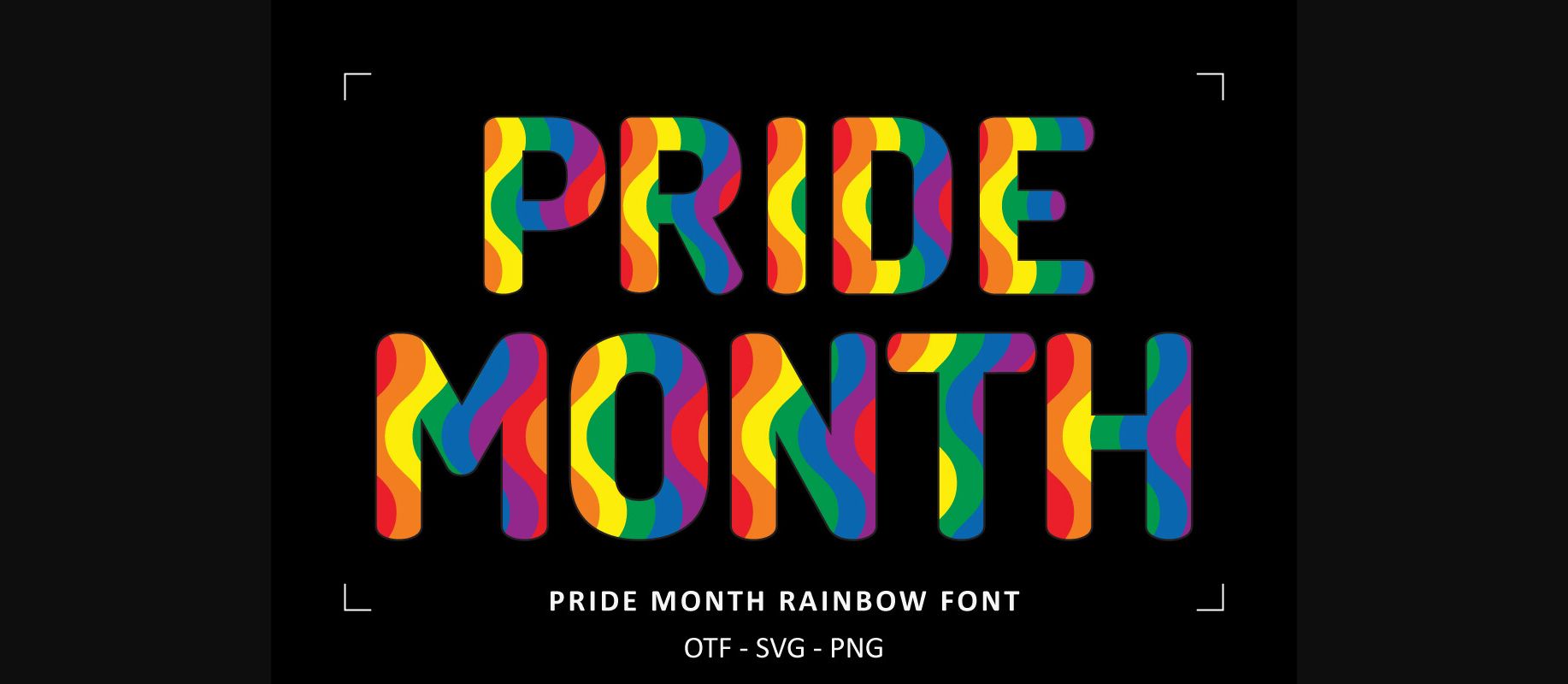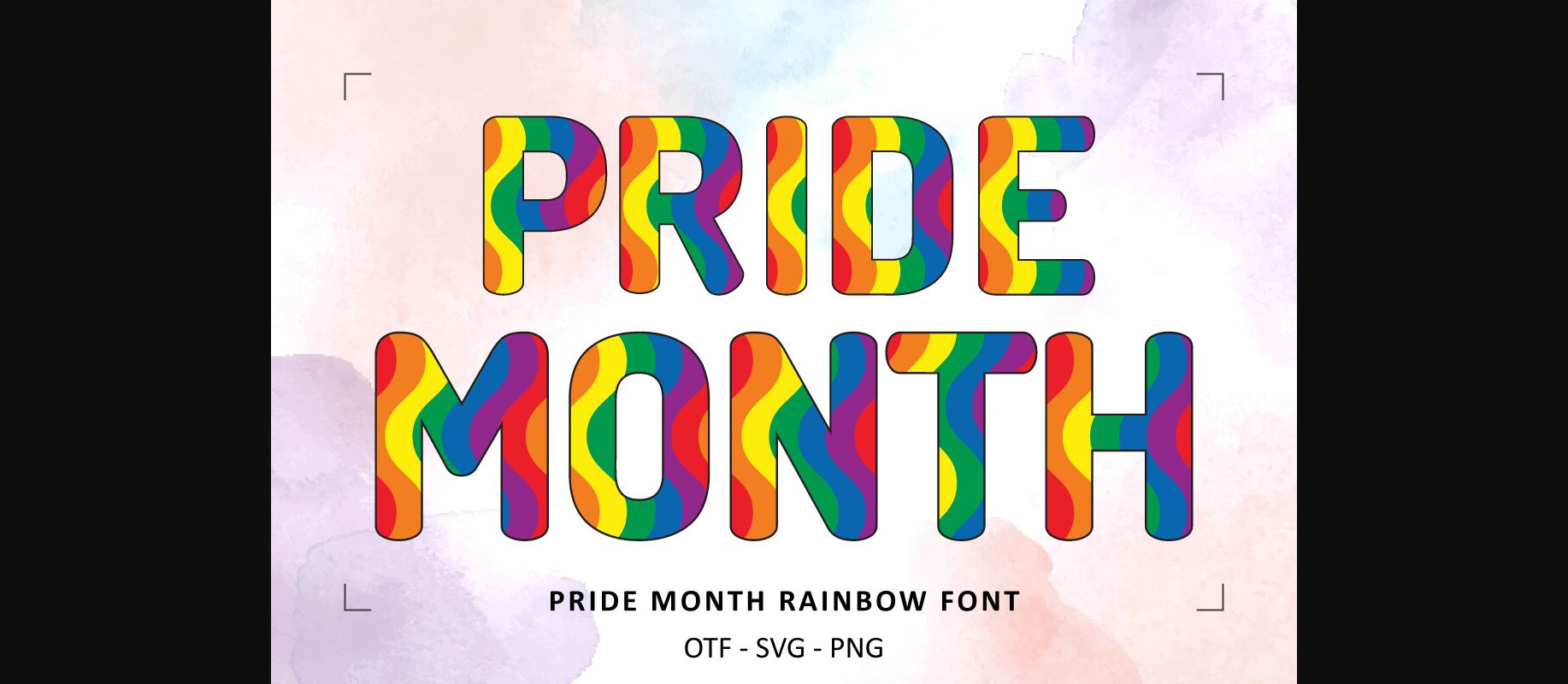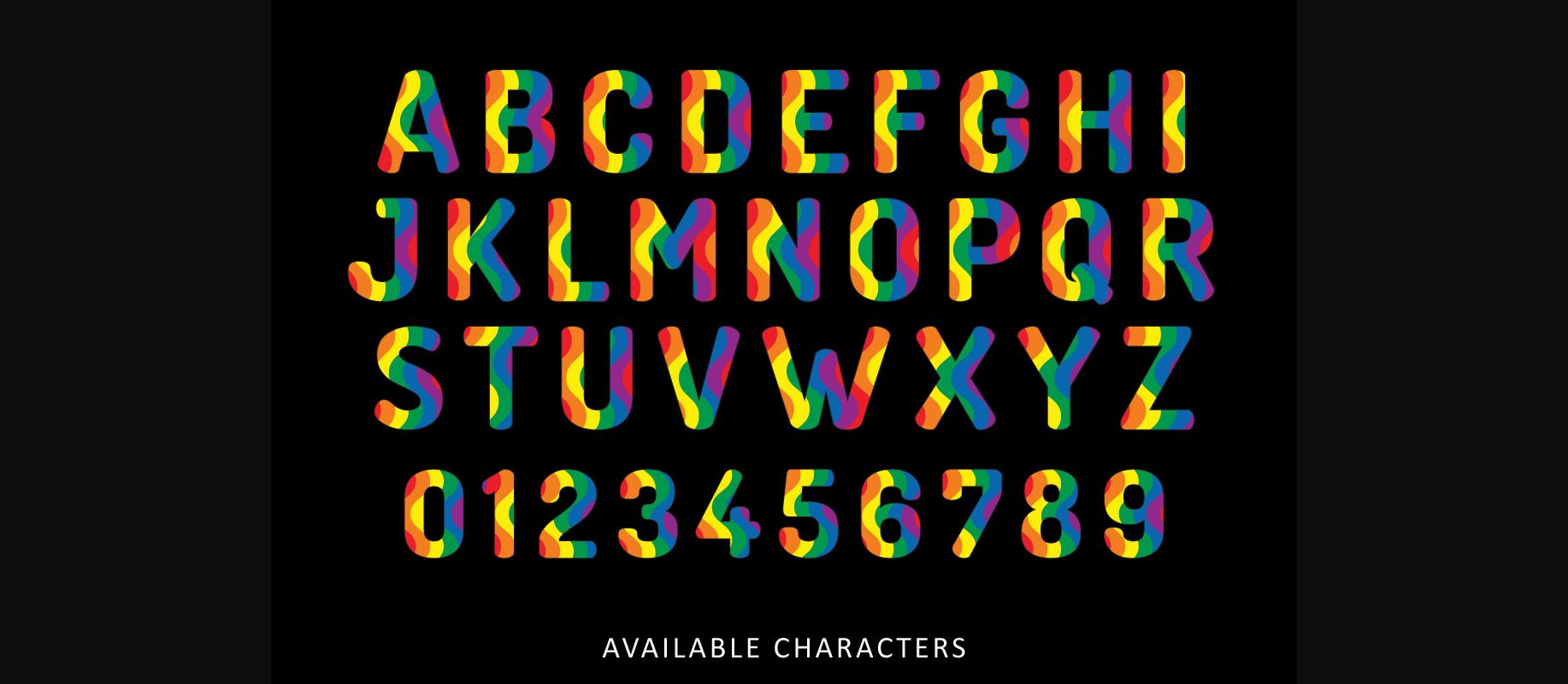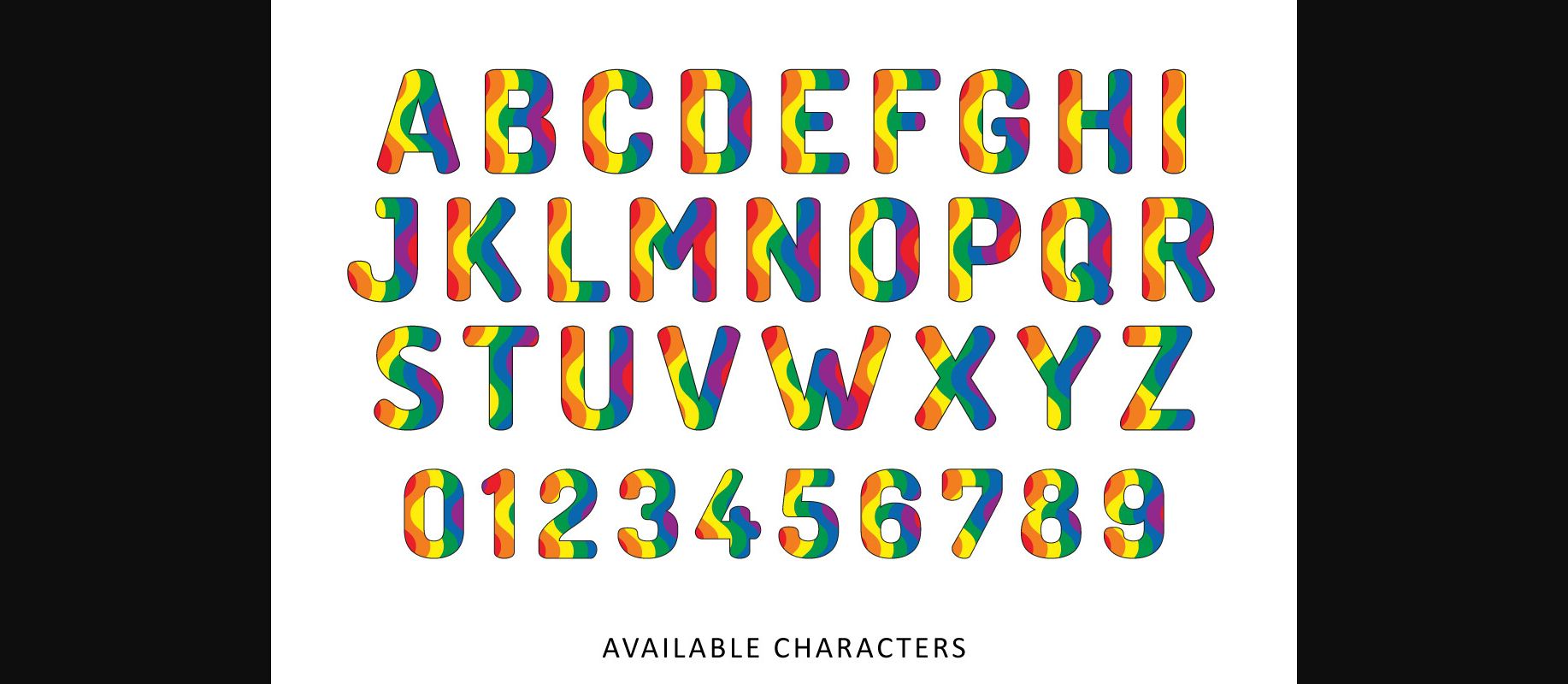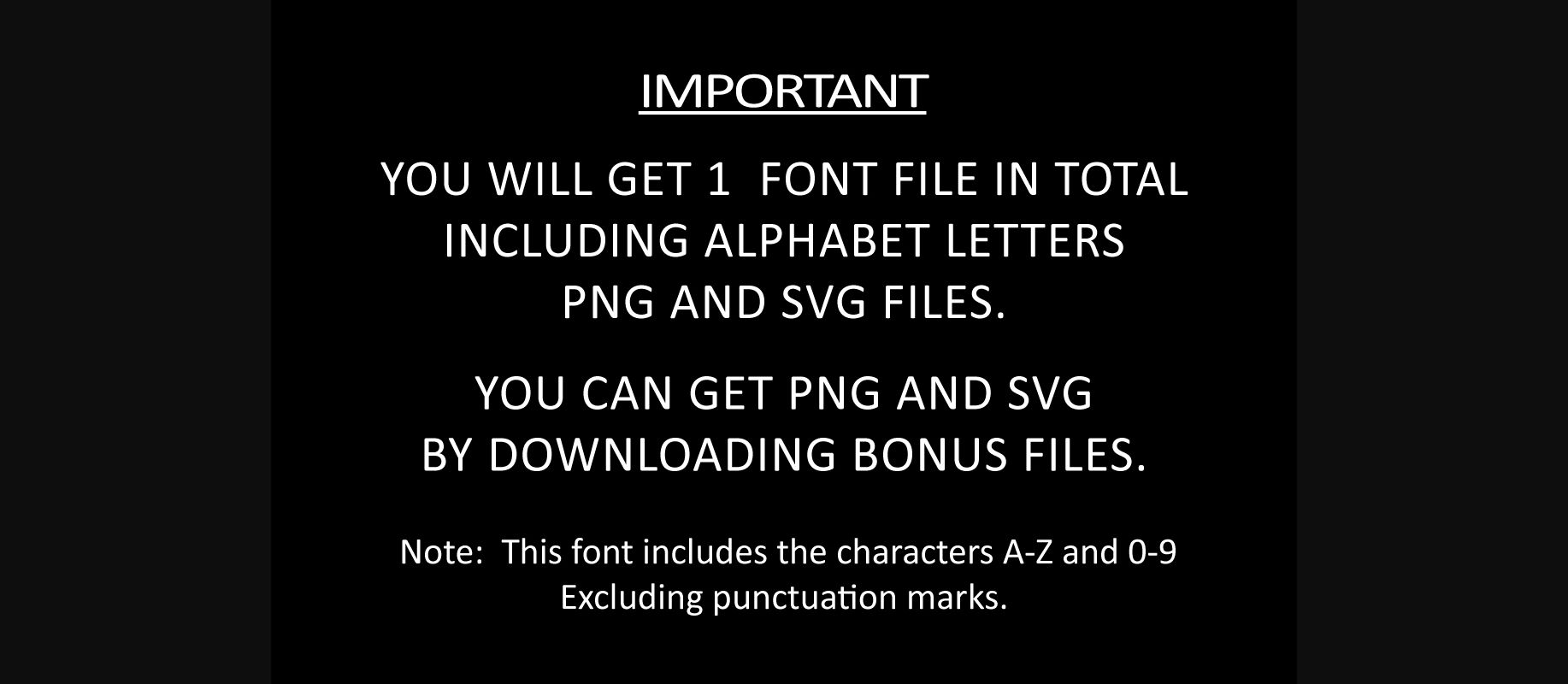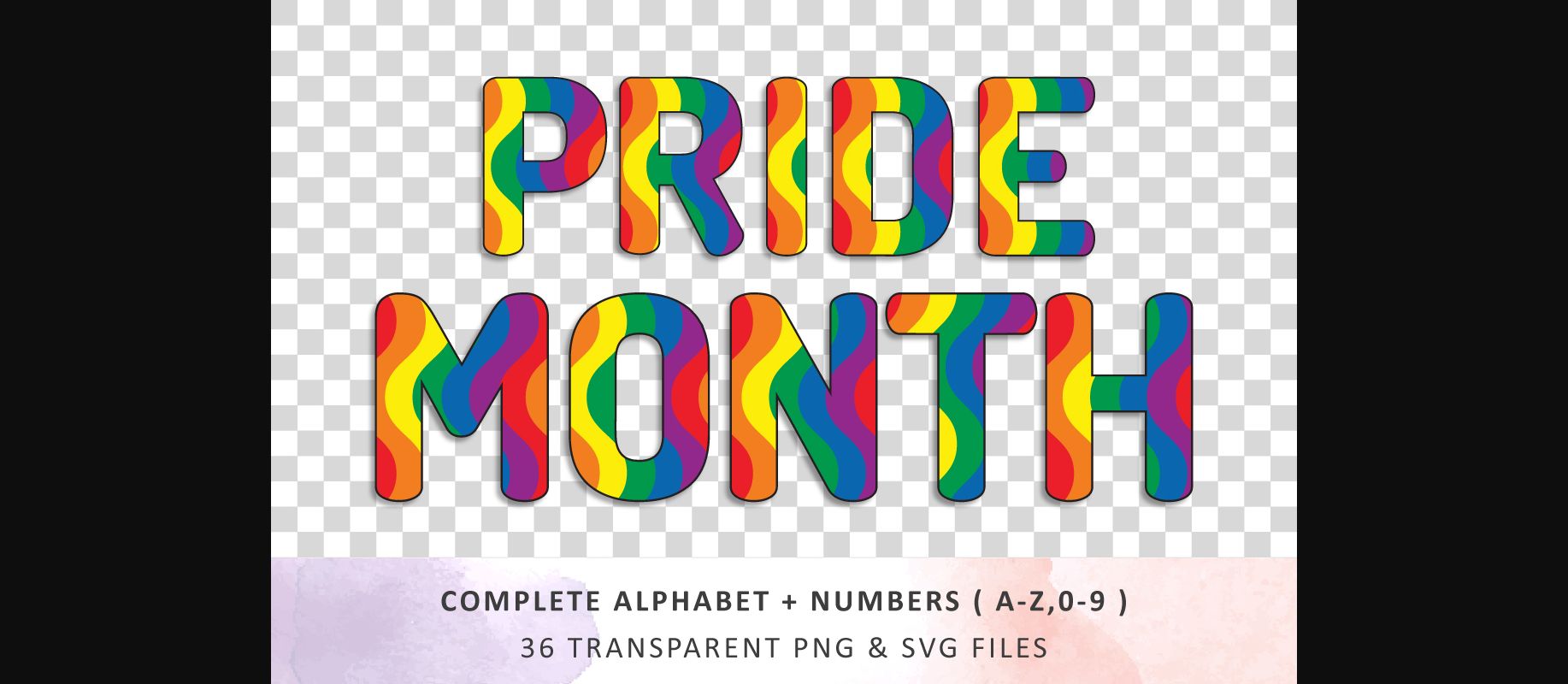
About Pride Month Rainbow Font
Introducing “Pride Month Rainbow Font” – inspired by the design language of the iconic Rainbow Flag for you to use in your upcoming Pride Month-themed projects. It’s ideal for anything ranging from t-shirts, book designs, restaurant menus, blog writing, and greeting cards to stickers, or anything that needs a casual touch. Fall in love with its incredibly cool style, and use it to create lovely designs!